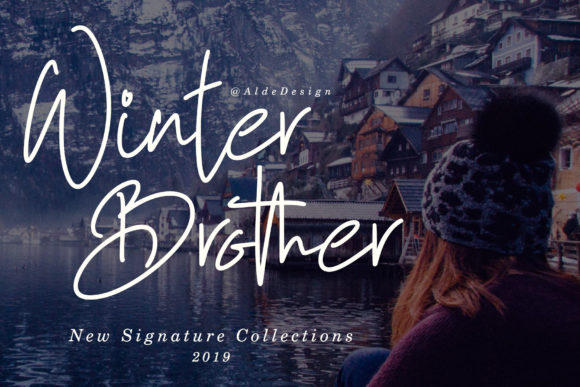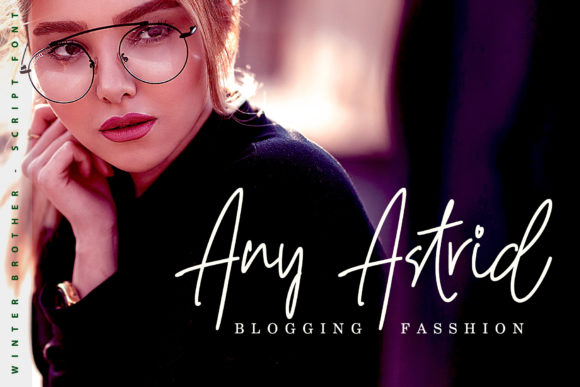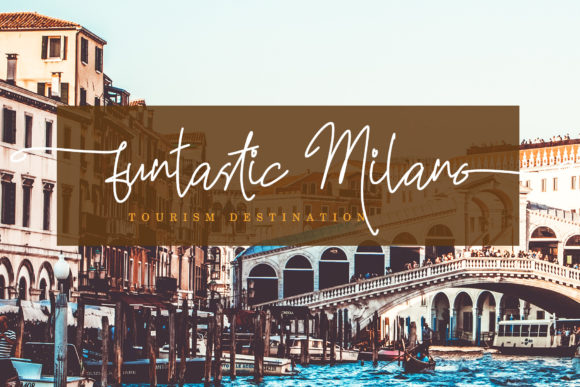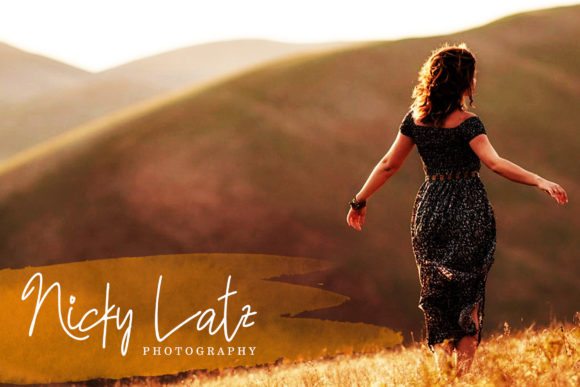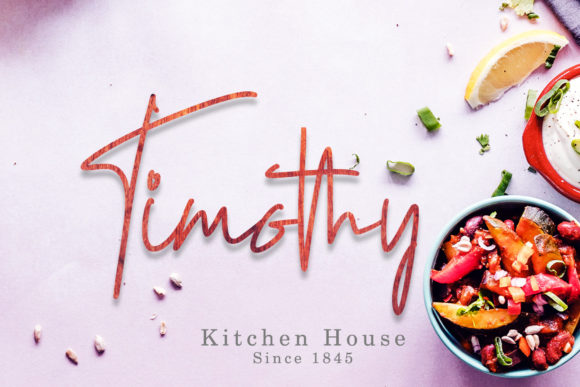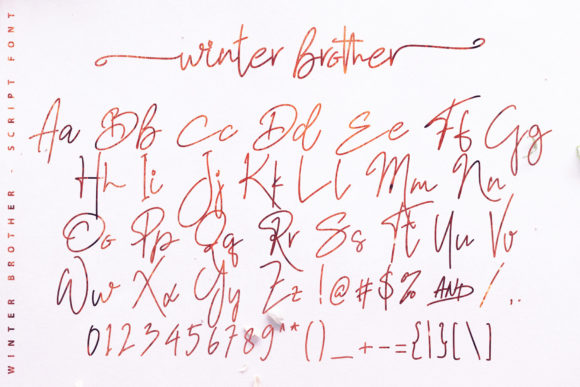
Winter Brother Font
About Winter Brother Font
Winter Brother is a casual, yet unique signature typeface. It includes beautiful swashes, that will add an organic feel to any design project!